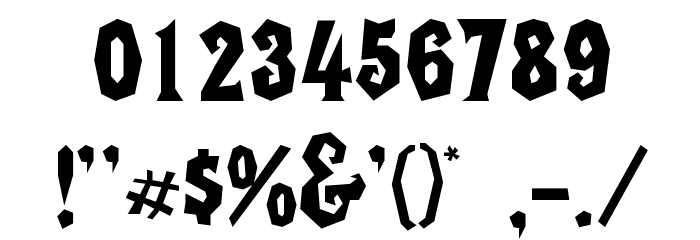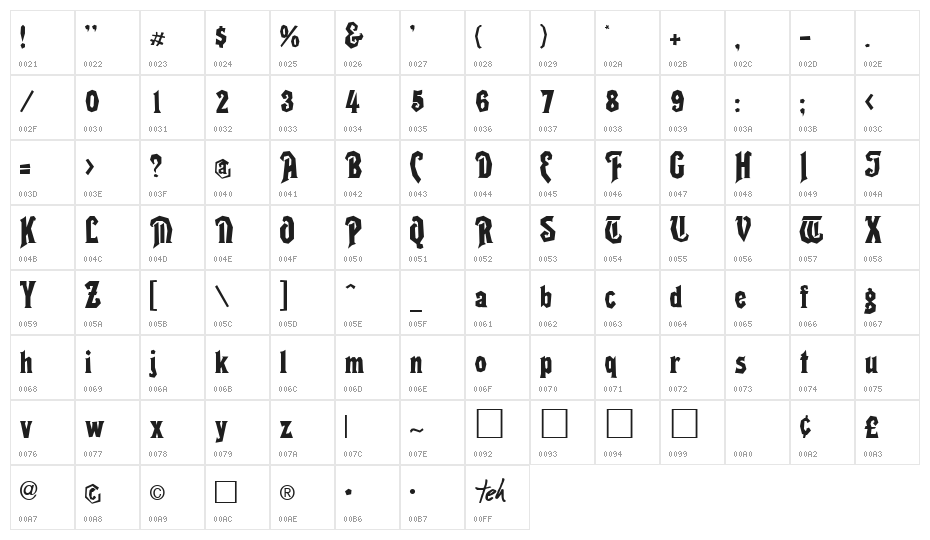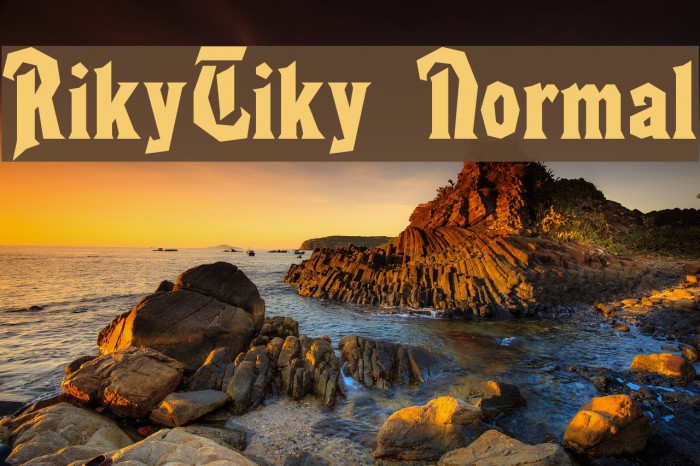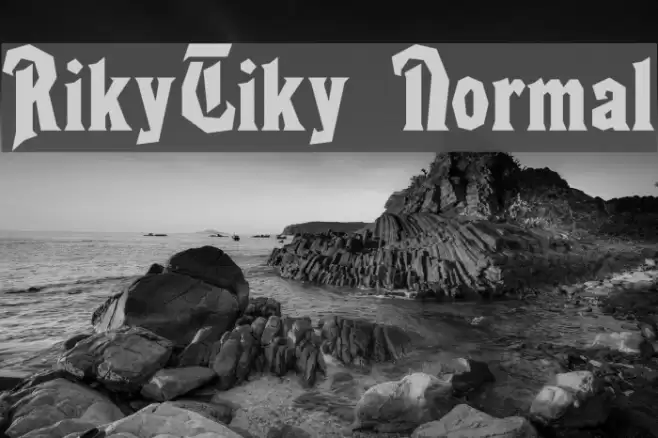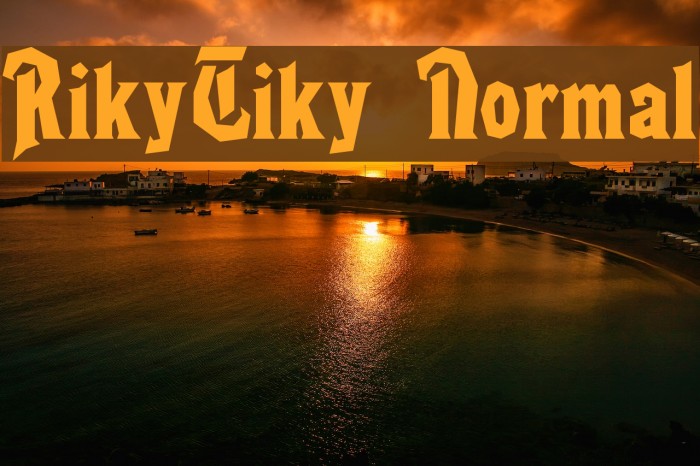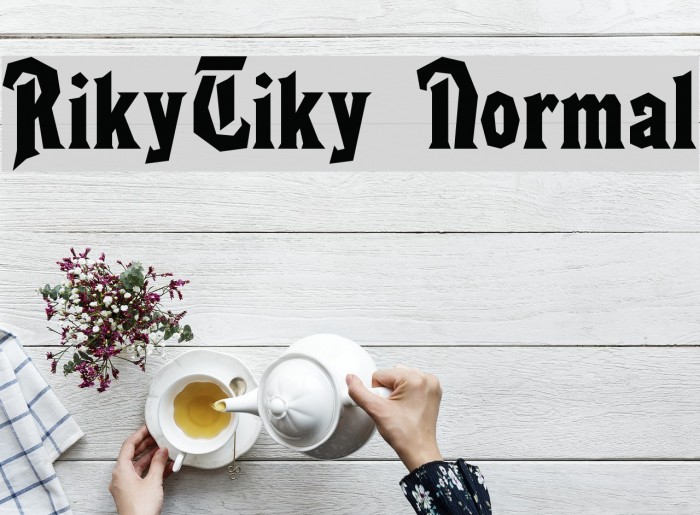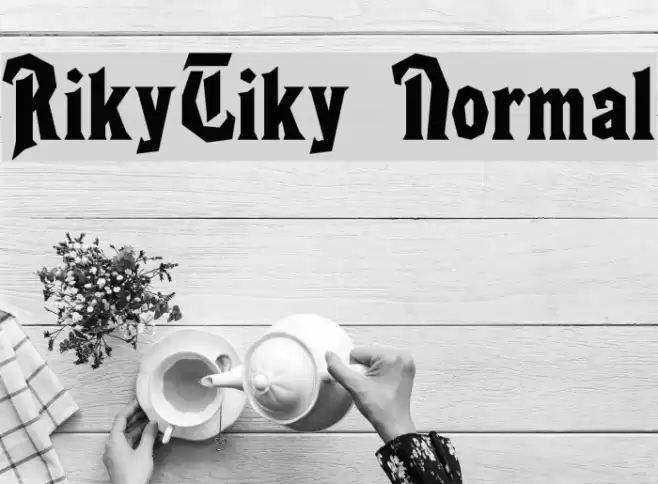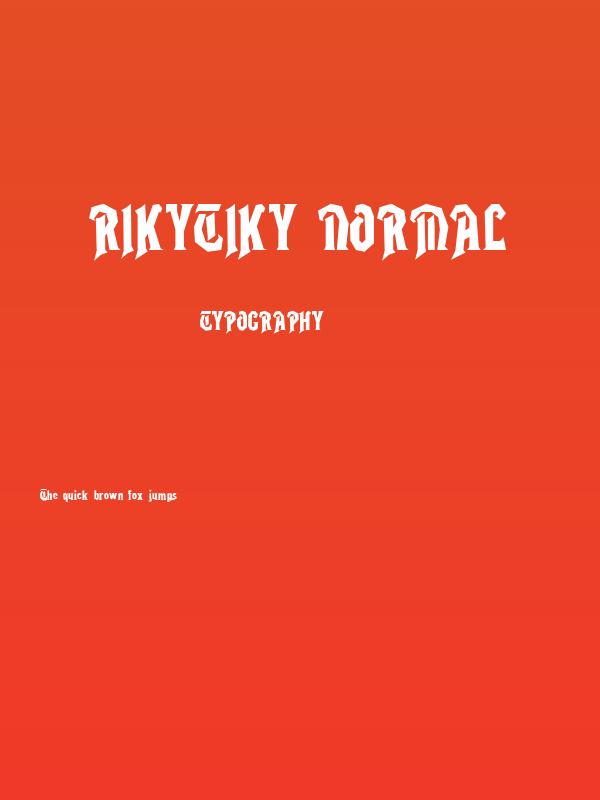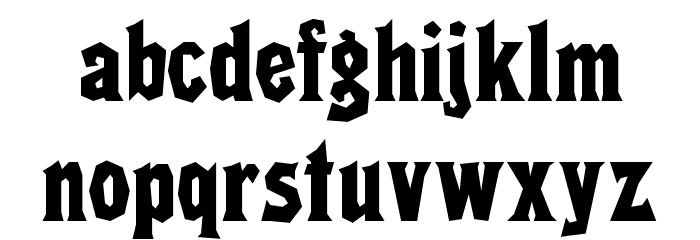
RikyTiky Normal Font
RikyTiky Normal Description
This font features a bold and striking blackletter style, characterized by its sharp, angular lines and dramatic presence. The uppercase letters exhibit a gothic influence with intricate details, while the lowercase letters maintain a consistent style that complements the uppercase. The numerals are equally bold, ensuring readability while maintaining the overall aesthetic. Special characters are designed with the same attention to detail, making them seamlessly integrate with the rest of the font. This font's unique style makes it ideal for projects that require a strong visual impact.